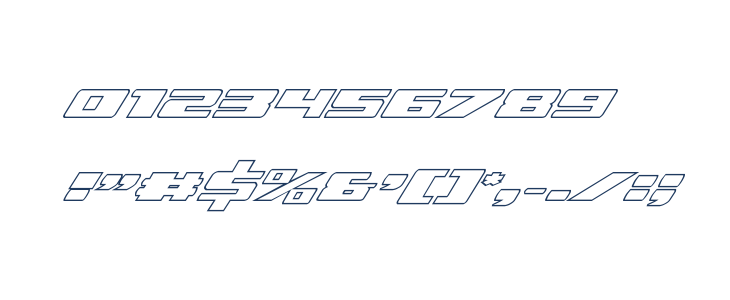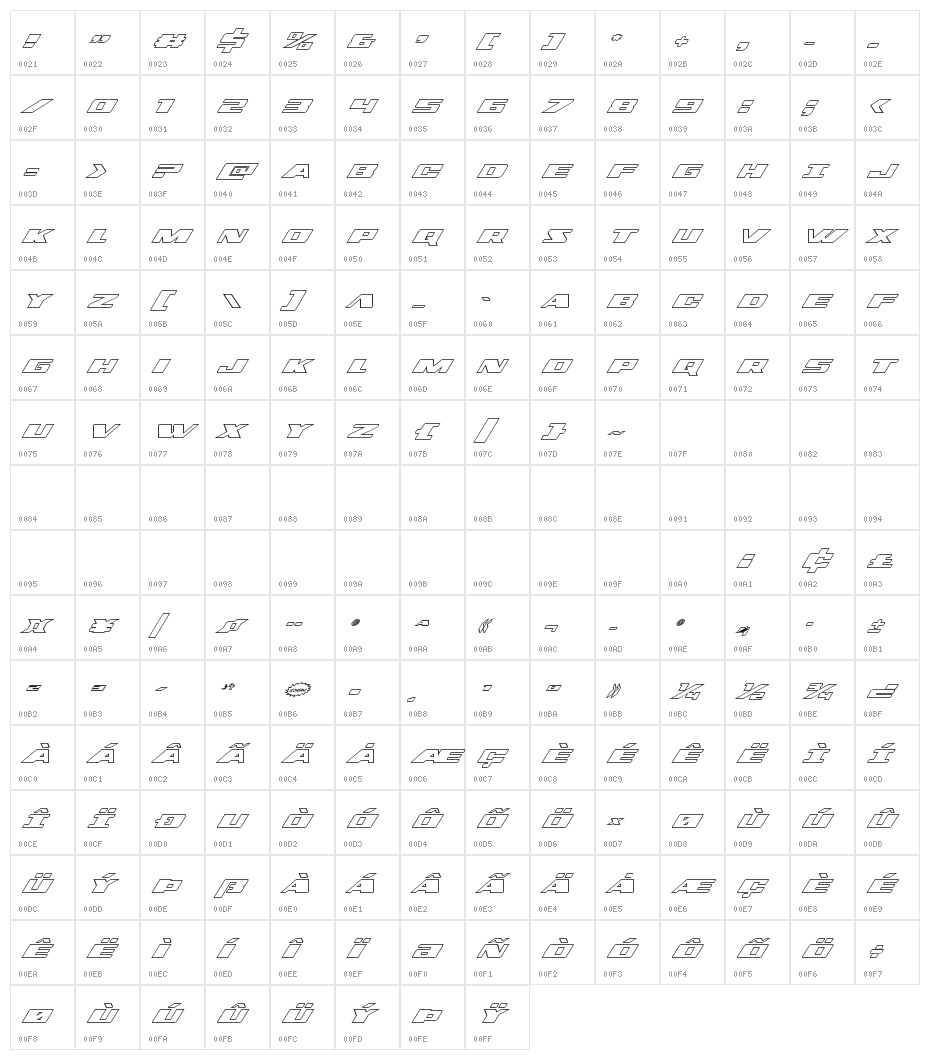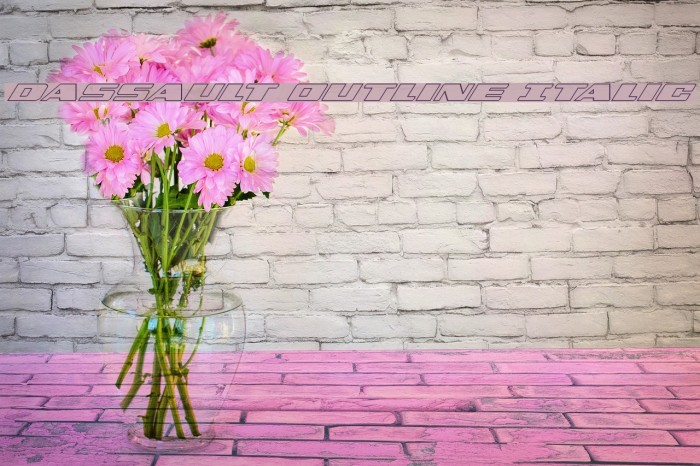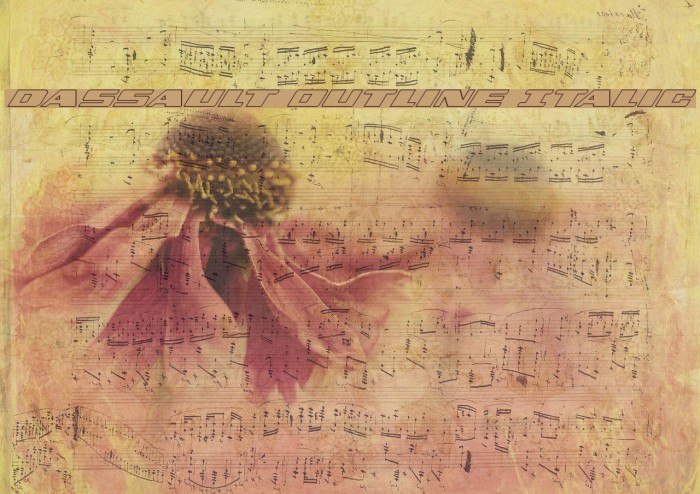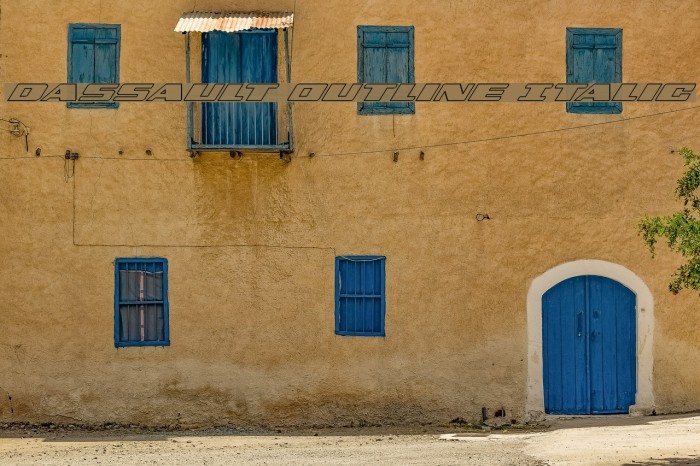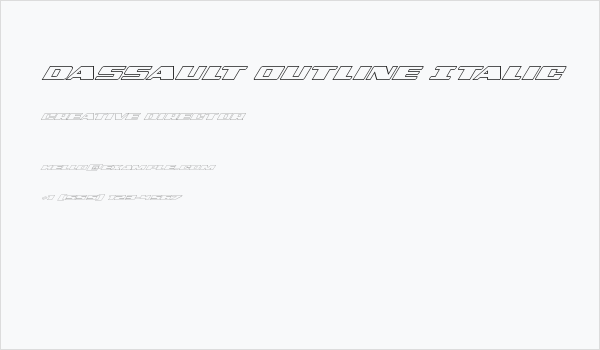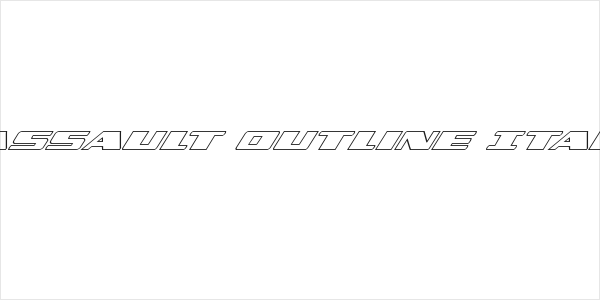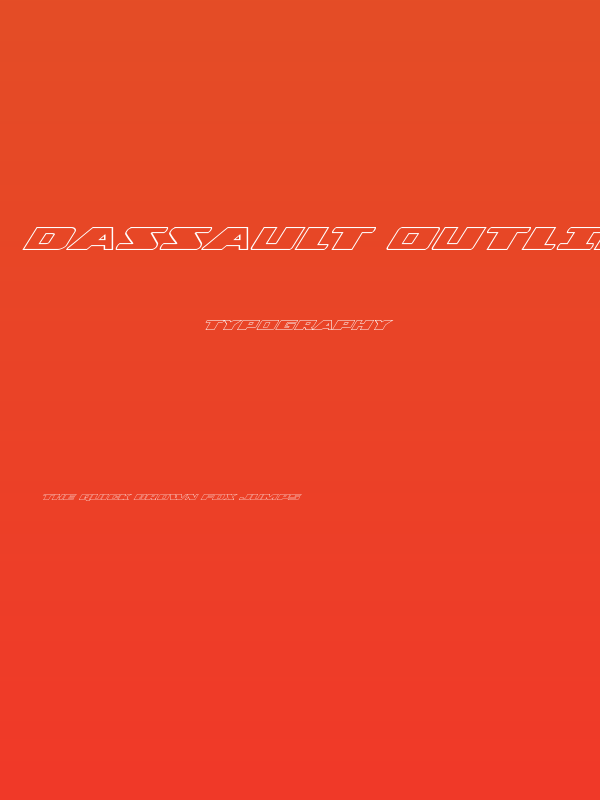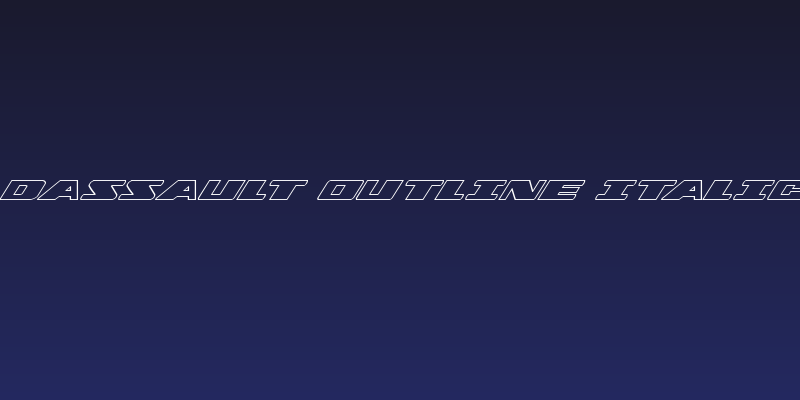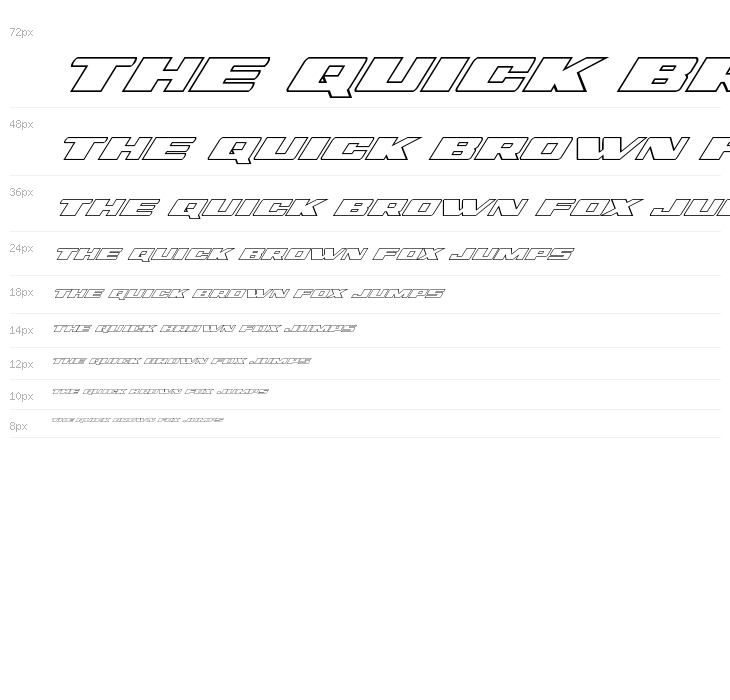
Dassault Outline Italic Font
Dassault Outline Italic Description
This font features a bold, italicized outline style that gives it a futuristic and dynamic appearance. The letters are designed with sharp angles and a slanted orientation, creating a sense of movement and speed. The outline effect adds a layer of depth, making the characters stand out prominently. The uppercase and lowercase letters maintain a consistent style, with the numbers and special characters following suit. This font is ideal for projects that require a modern and edgy look, such as technology branding, sports team logos, or sci-fi themed designs.
| Use Case | Logos, Headlines |
| Proposed Projects | Ideal for technology branding, sports logos, and sci-fi themed designs. |